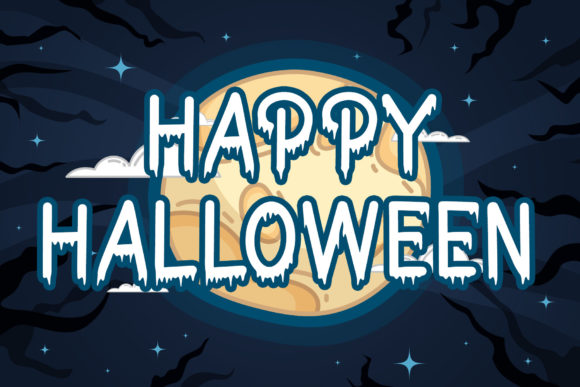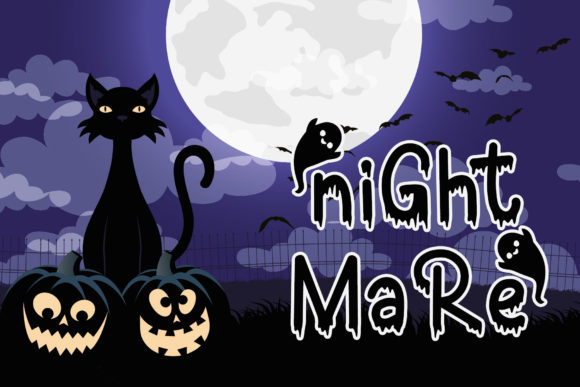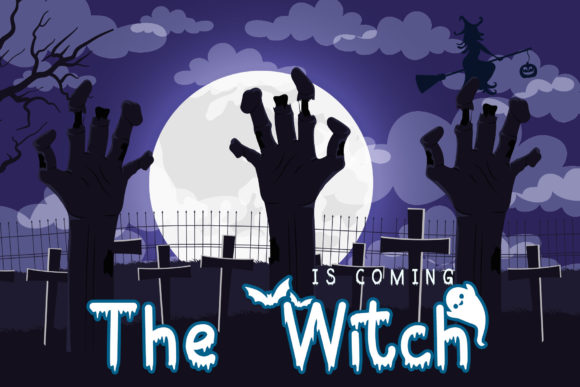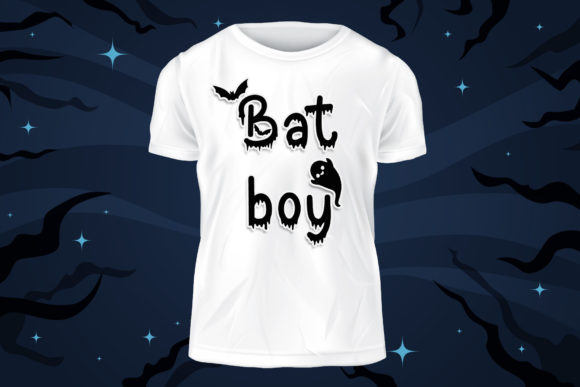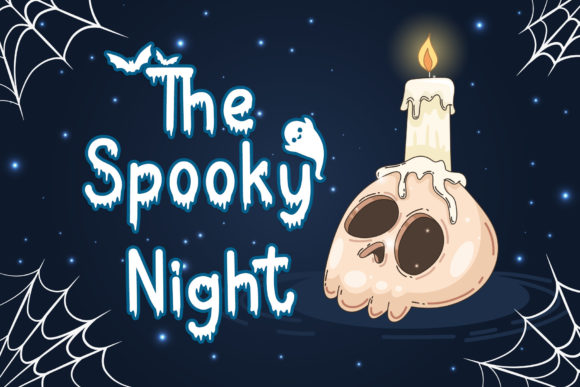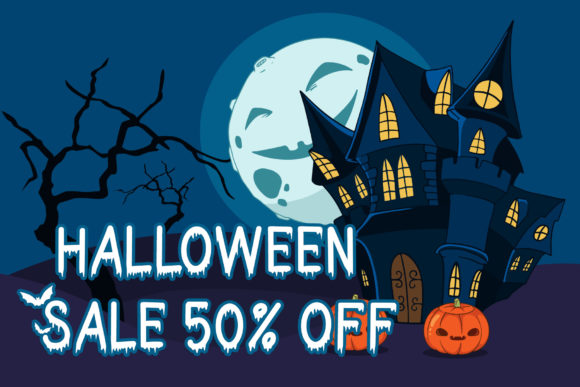
Spice Up Your Creations with the Charming Bat Boo Font
Have you ever found yourself staring at a blank page, struggling to find the perfect font to bring your creative vision to life? That’s exactly where I was when I discovered the enchanting Bat Boo Font. This cool and spooky display font has been a game-changer for me, and I’m excited to share its magic with you.
Bat Boo Font is more than just a stylish addition to your designs – it’s a key to unlocking a world of creative possibilities. With its extensive PUA encoding, you’ll have access to a wide range of glyphs and swashes, allowing you to add a unique touch to your projects. Whether you’re a seasoned designer or just starting out, the Bat Boo Font is a valuable addition to your toolkit.
Bat Boo Font Key Features
- Font Family: Bat Boo Font is a unique, handwritten font designed to evoke a sense of mystery and elegance.
- Character Set: The font includes a wide range of characters, including uppercase and lowercase letters, numerals, punctuation marks, and special characters.
- Unique Characteristics: The font’s distinctive, hand-drawn style and varied line widths give it a dynamic, expressive feel that’s perfect for adding a touch of whimsy to designs.
Review of Bat Boo Font
As a designer, I was excited to try out the Bat Boo Font. Here’s my honest review:
- The unique, gothic-inspired design of the font adds a touch of sophistication to any project.
- The bold and confident feel of the font makes it perfect for headlines and titles.
- The font is highly legible, even at small font sizes, which is a must for any font.
- The font can be a bit too bold for some applications, making it difficult to read at certain font sizes.
- The lack of a light or regular version of the font can make it challenging to create a balanced typographic hierarchy.
- The font may not be suitable for projects that require a more playful or whimsical tone.
Overall, I think the Bat Boo Font is a solid choice for designers who want to add a touch of drama and sophistication to their projects. However, it may not be the best fit for every project, and designers should be aware of its limitations before using it.
The Bat Boo Font is ideal for creating spooky, whimsical, and playful designs. Some common use cases include:
– Halloween-themed invitations and decorations
– Children’s book illustrations and typography
– Spooky-themed social media graphics and ads
– Whimsical wedding invitations and decorations